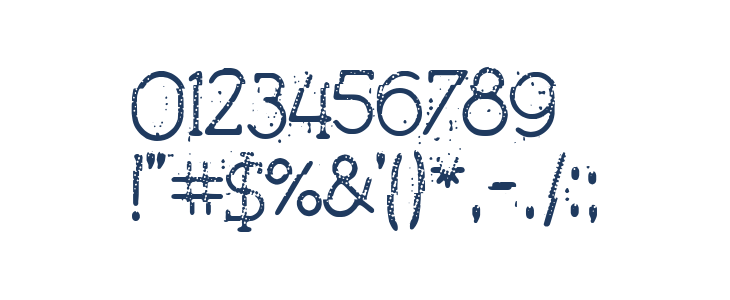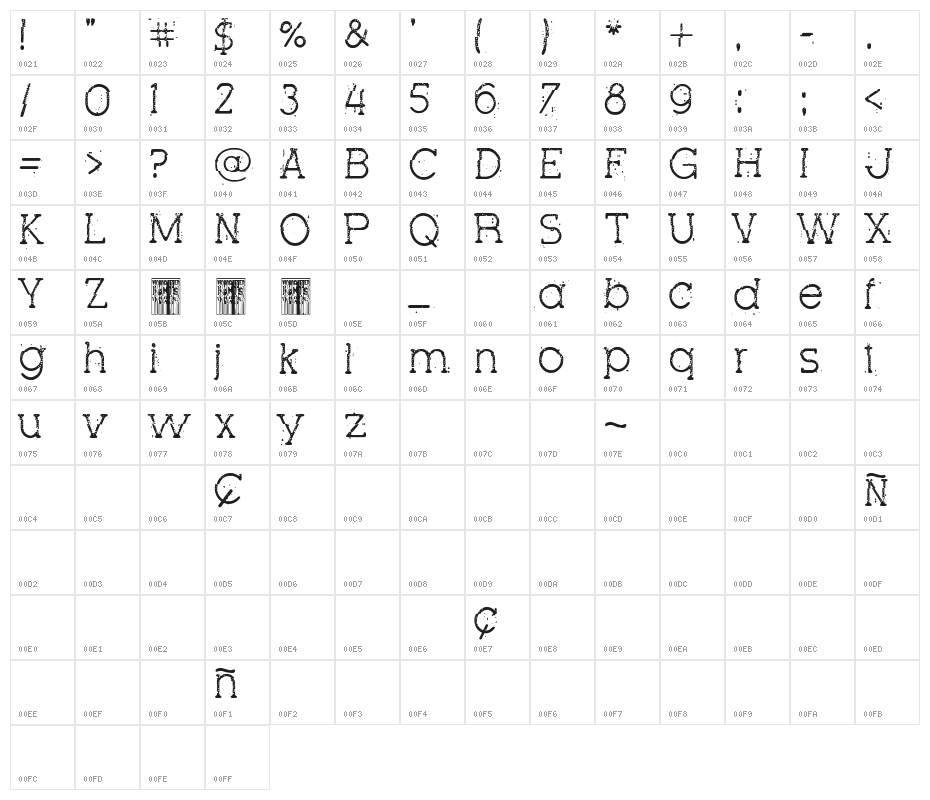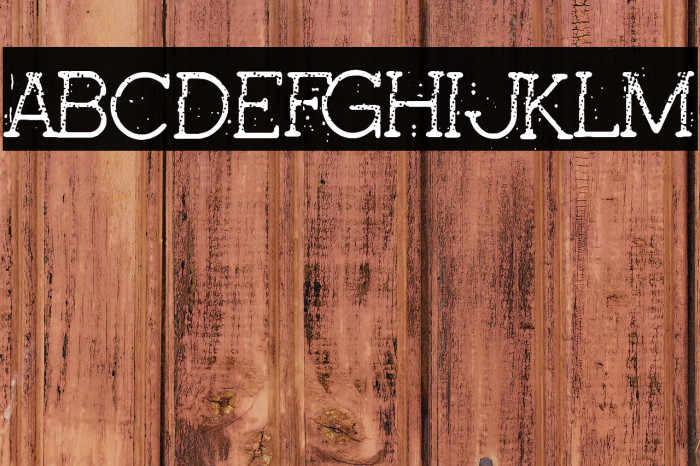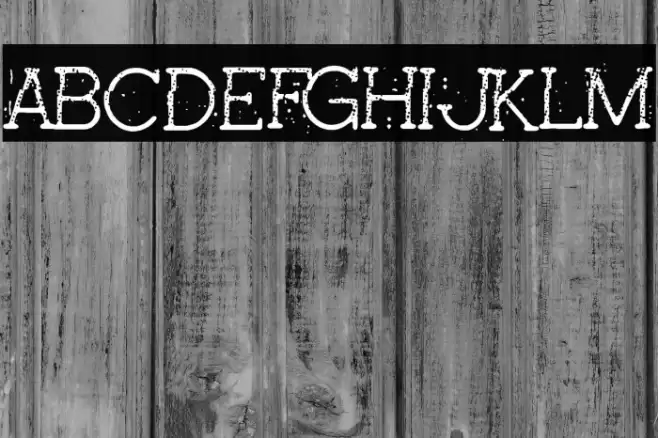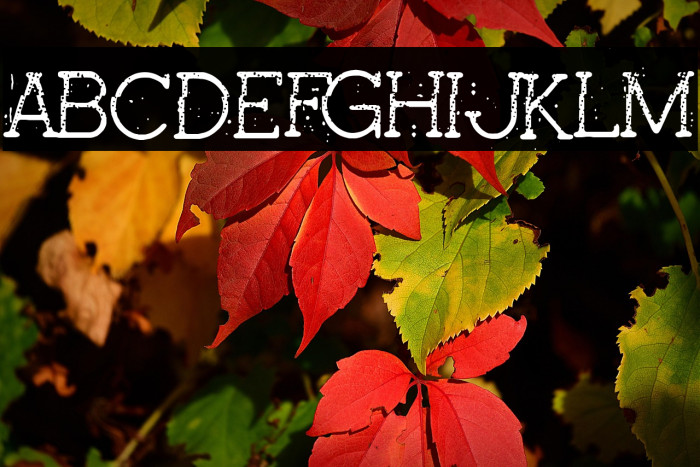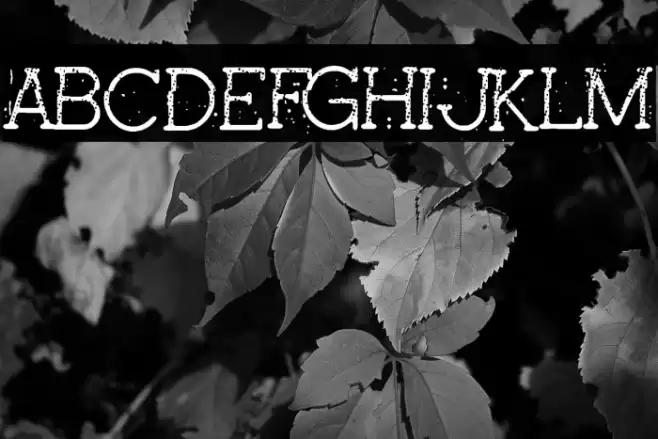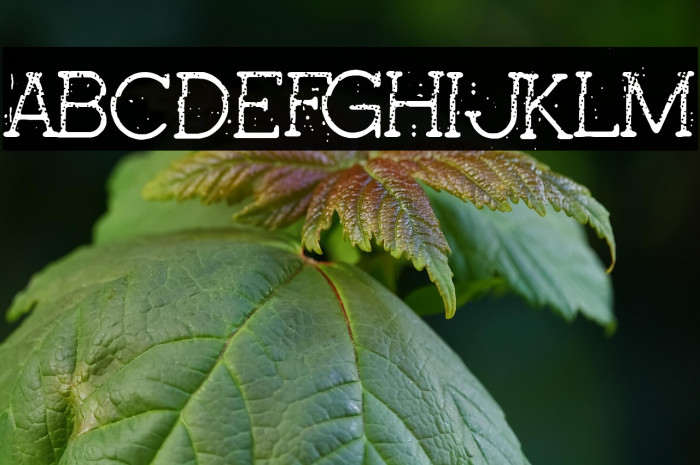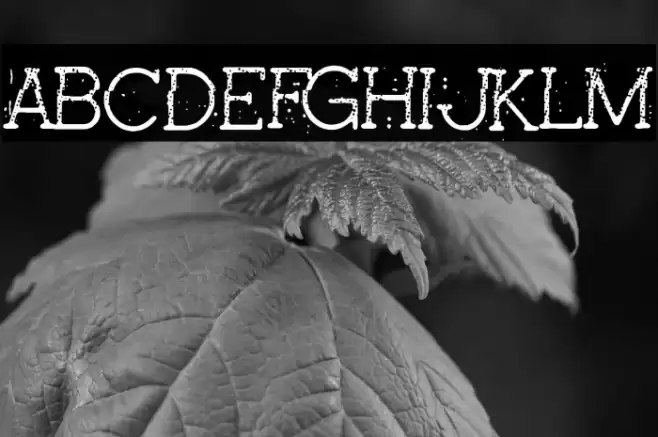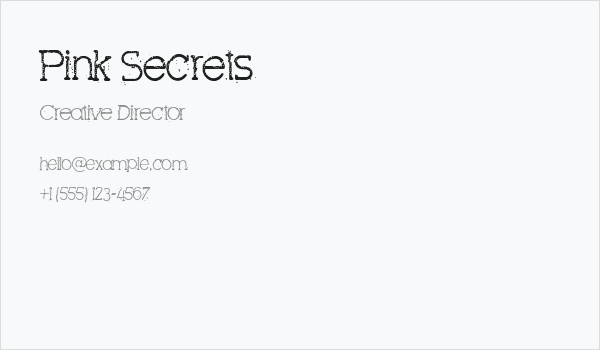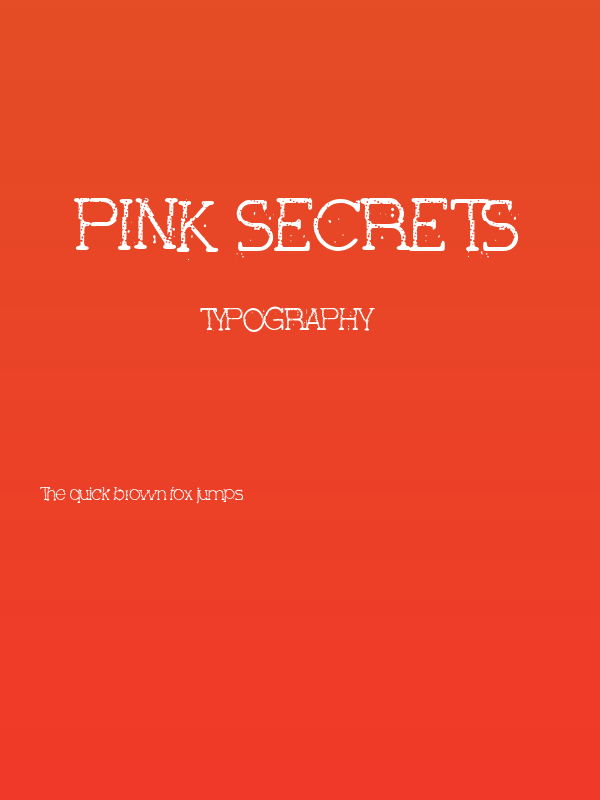
Pink Secrets Font
Pink Secrets Description
This font features a distressed, grunge aesthetic with a unique texture that gives it a worn and weathered appearance. The characters are bold and rounded, with a consistent thickness throughout, creating a sense of uniformity despite the irregular texture. The letters have a playful yet edgy feel, making them stand out in any design. The font includes a full set of uppercase and lowercase letters, numbers, and a variety of special characters, all maintaining the same distressed style. This font is perfect for projects that require a bold statement with a touch of vintage or rebellious flair.
| Overall Style | Grunge, Vintage |
| Proposed Projects | Ideal for music album covers, posters, urban-themed designs, and branding that requires a bold, edgy look. |